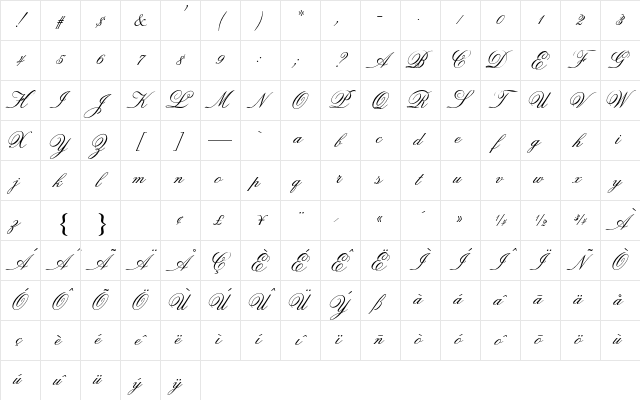
Old Fashion Script AT Regular
Foundry: Miles Inc
Design Context for Old Fashion Script AT
Old Fashion Script AT flows with the natural rhythm of handwritten lettering, making it ideal for designs that call for warmth and personal expression.
Font Pairing: Combine Old Fashion Script AT with a simple geometric sans for maximum contrast - the tension between flowing curves and clean structure is a classic typographic pairing.
Pro Tip: Use Old Fashion Script AT for short runs of text - names, titles, or taglines. Extended body copy in script faces tires the eye quickly.